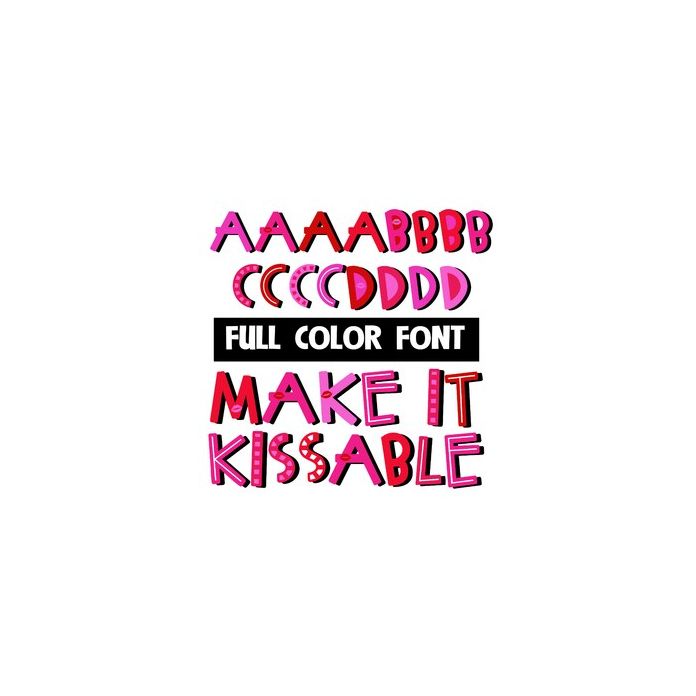
This full-color font features bright colors and kisses. There is a secondary alt case for both upper and lower that you can access through Silhouette's glyph map.